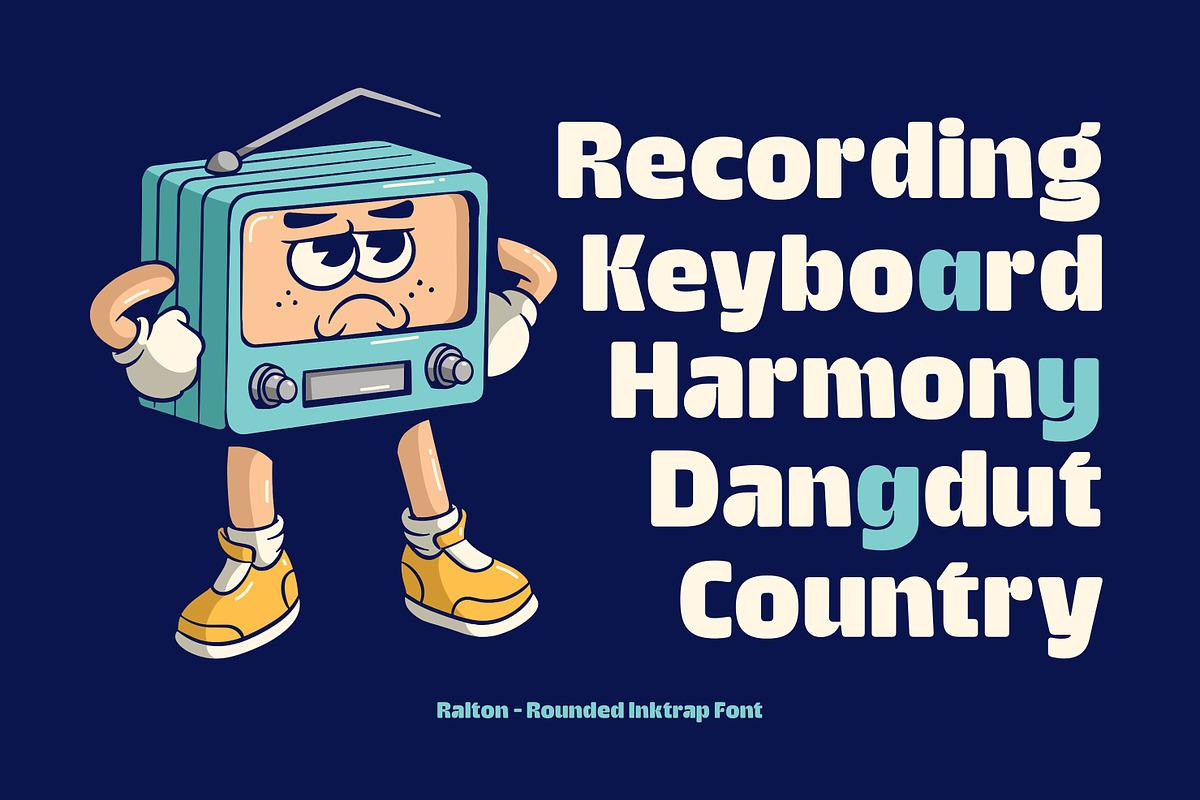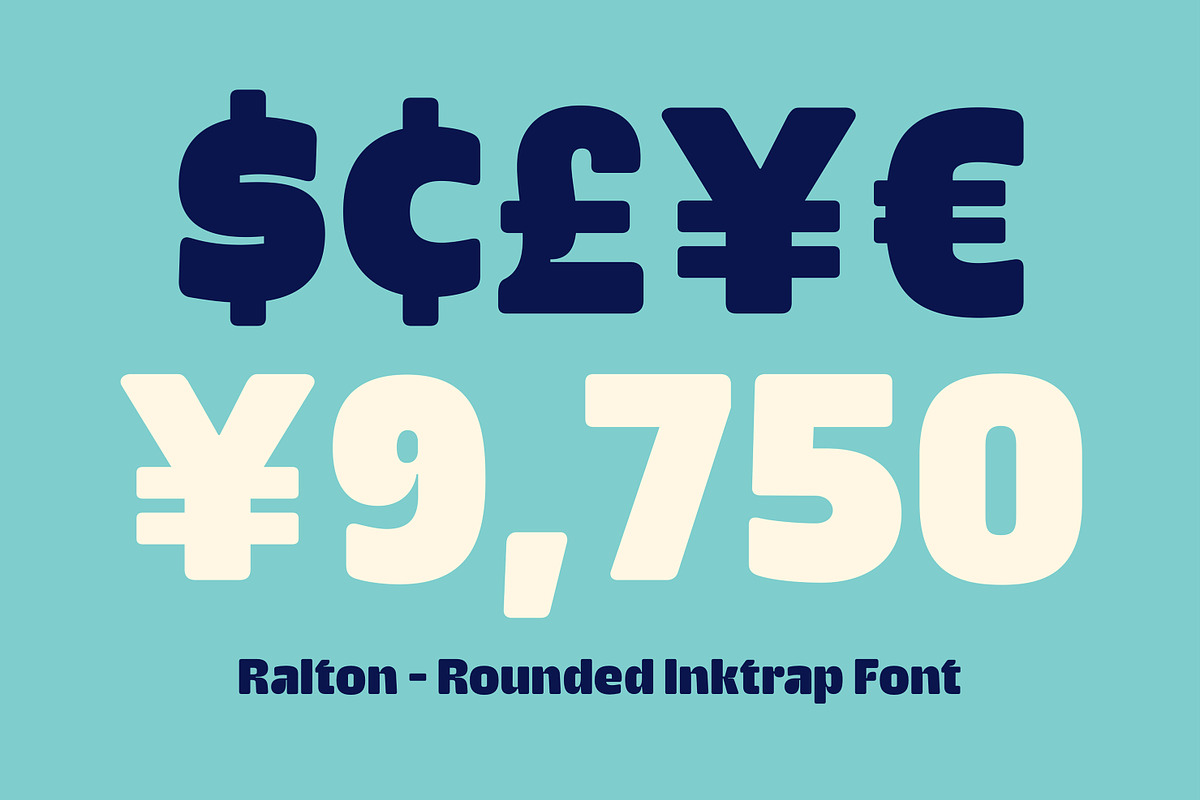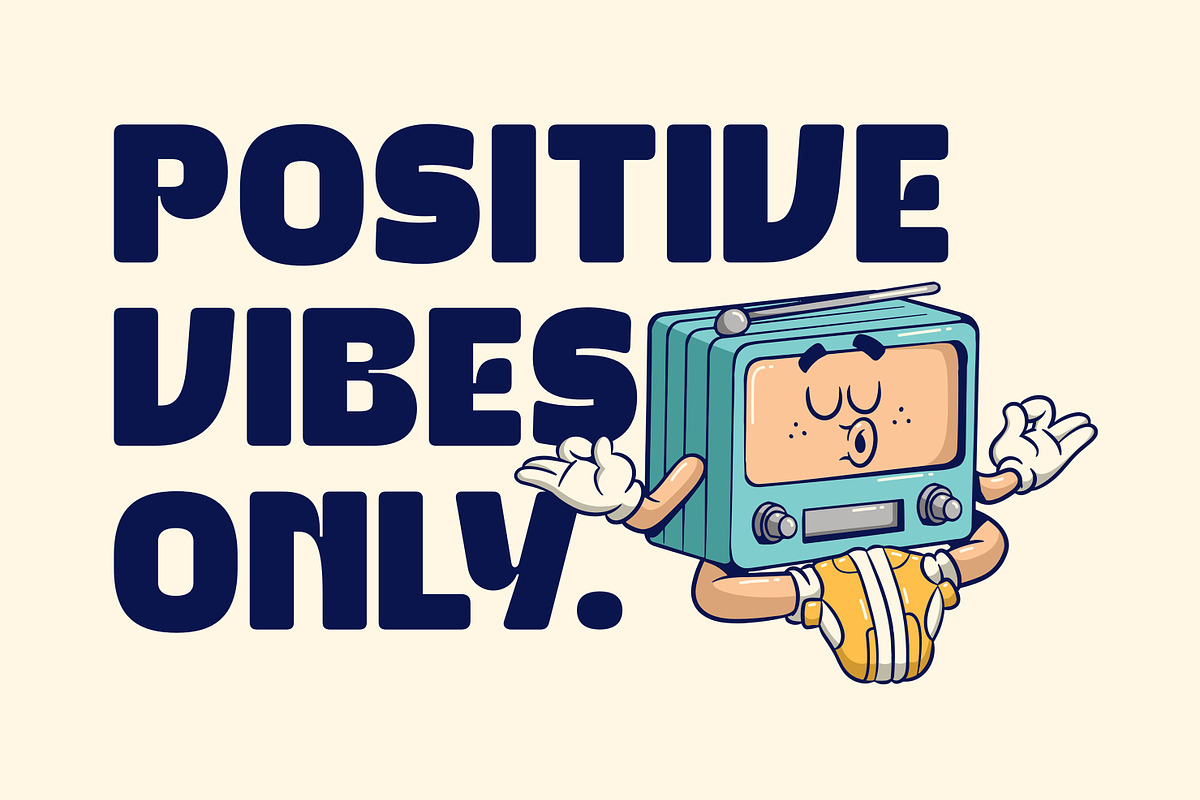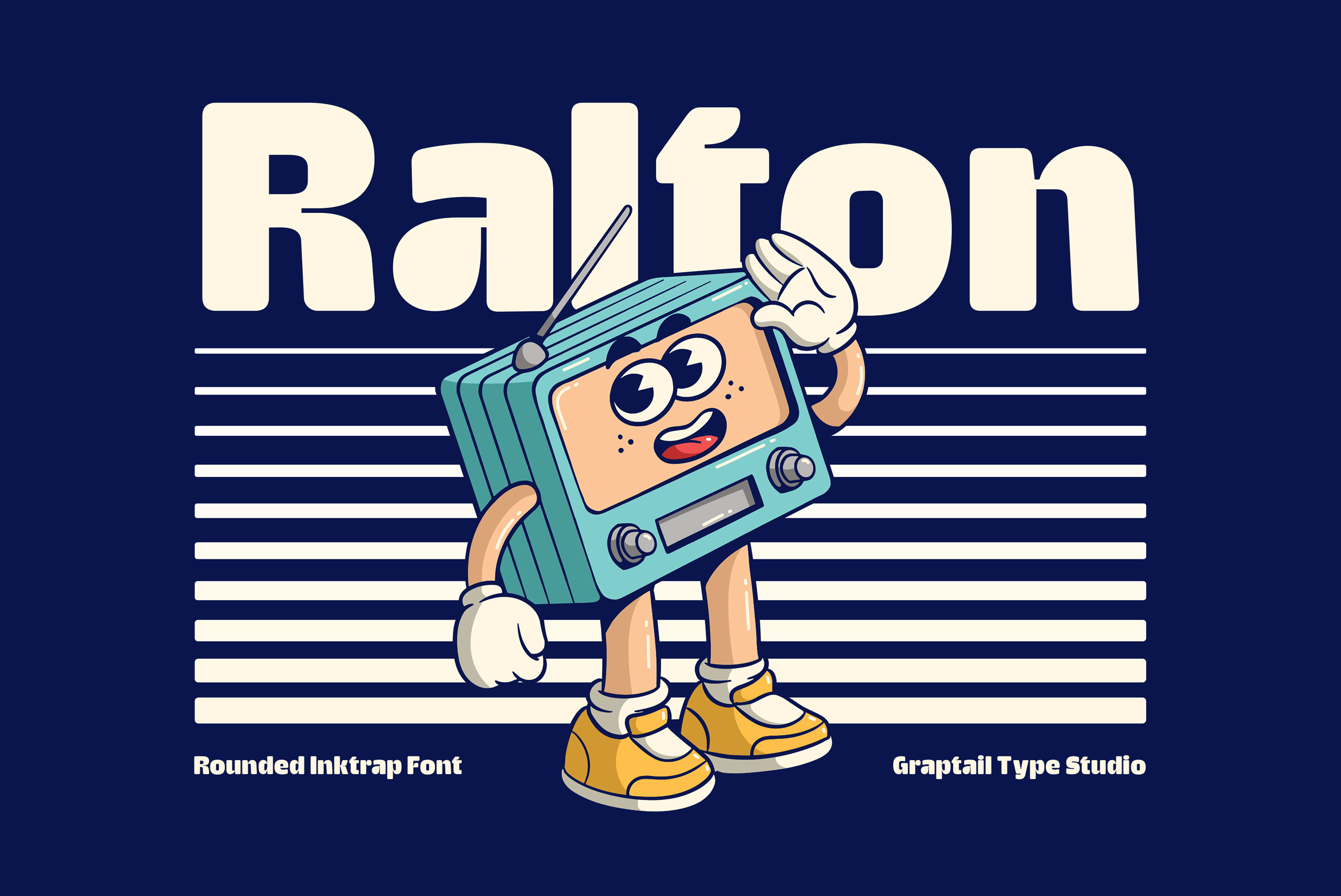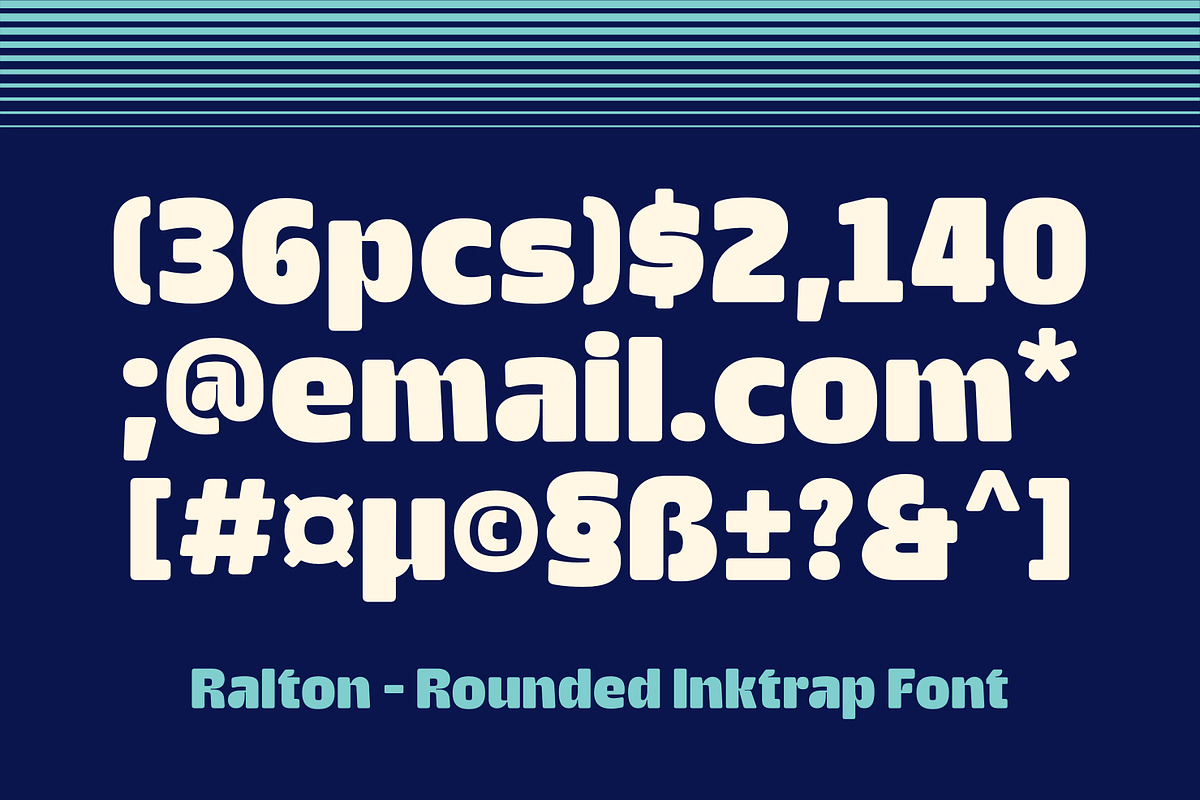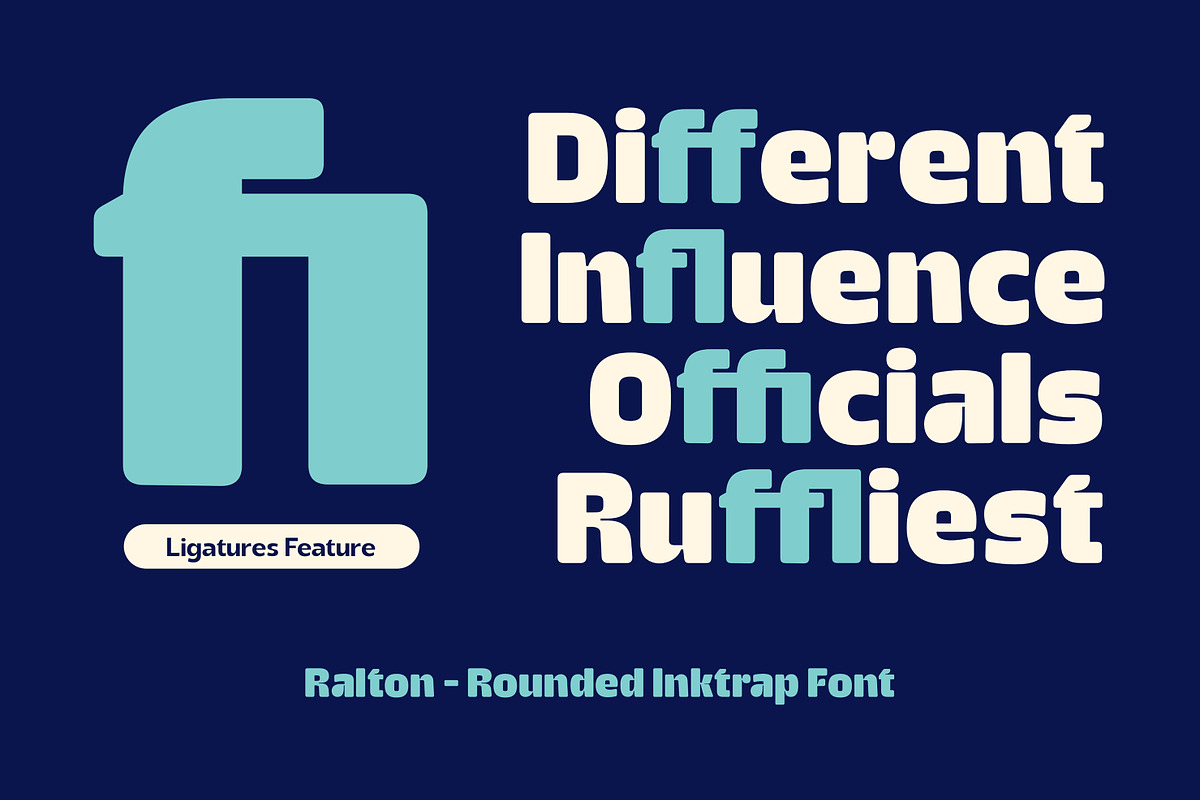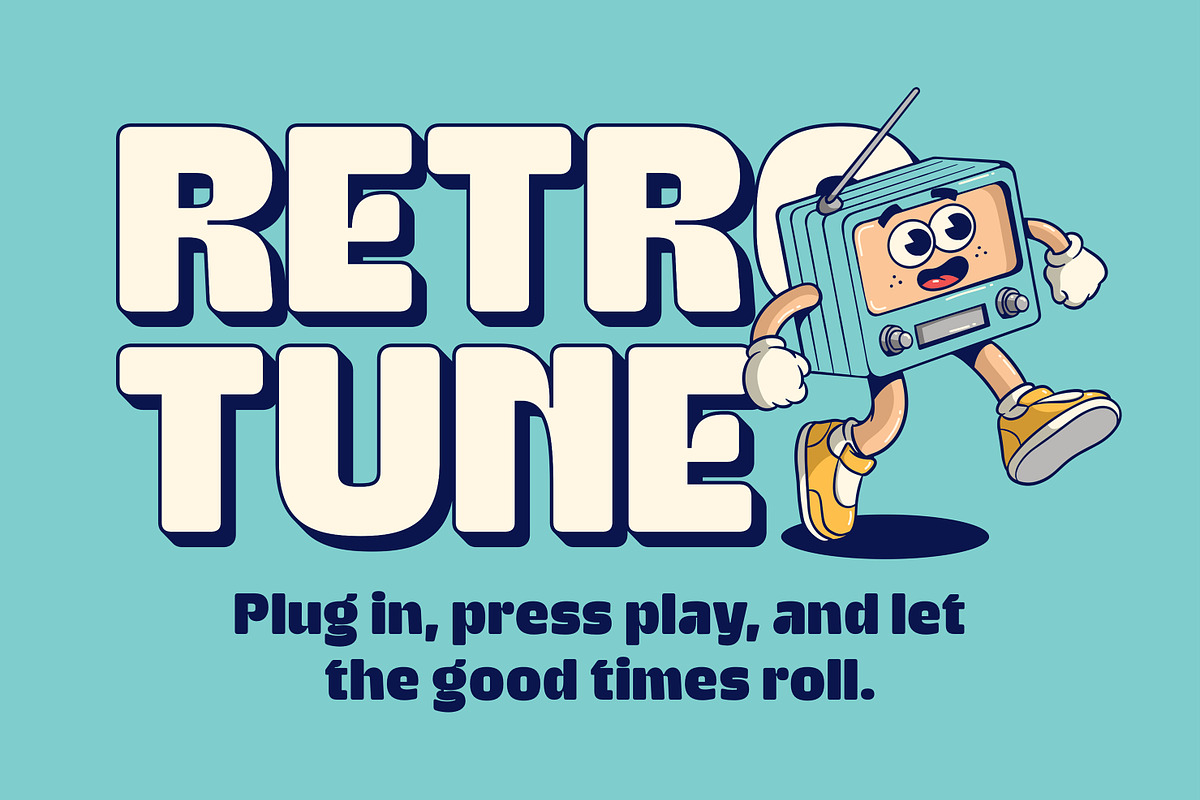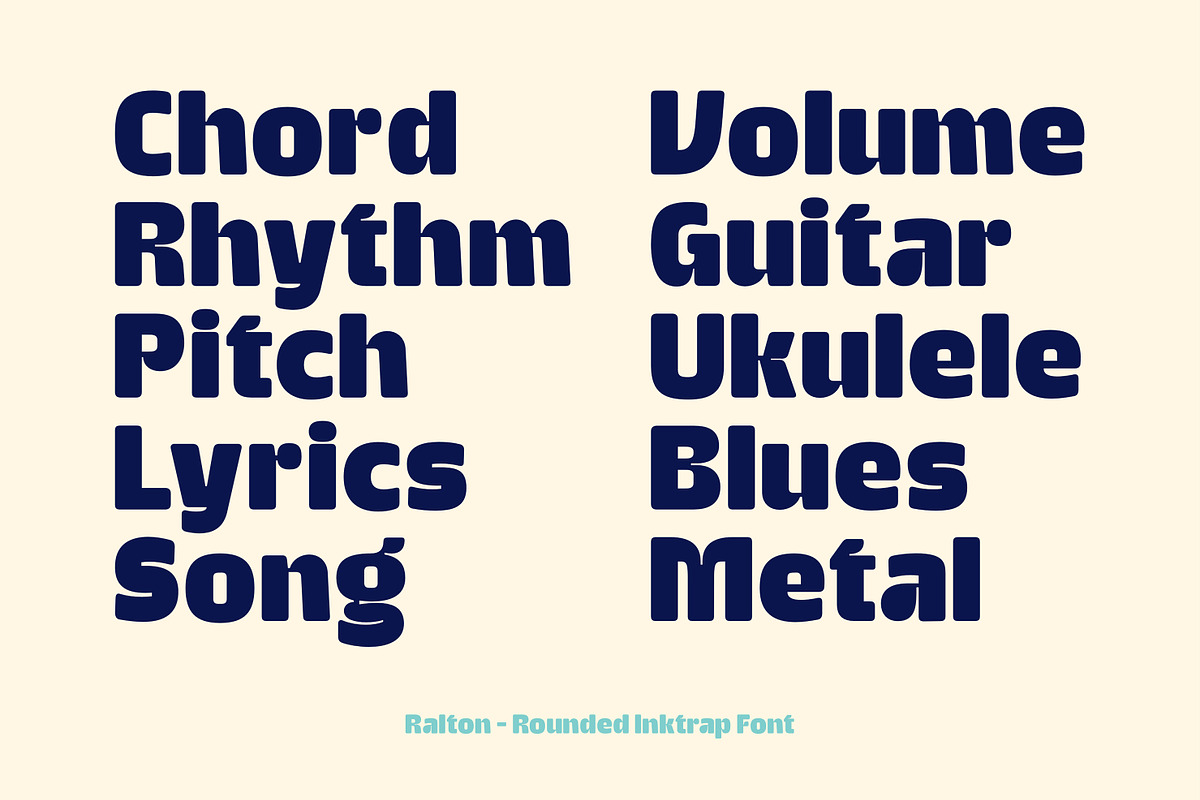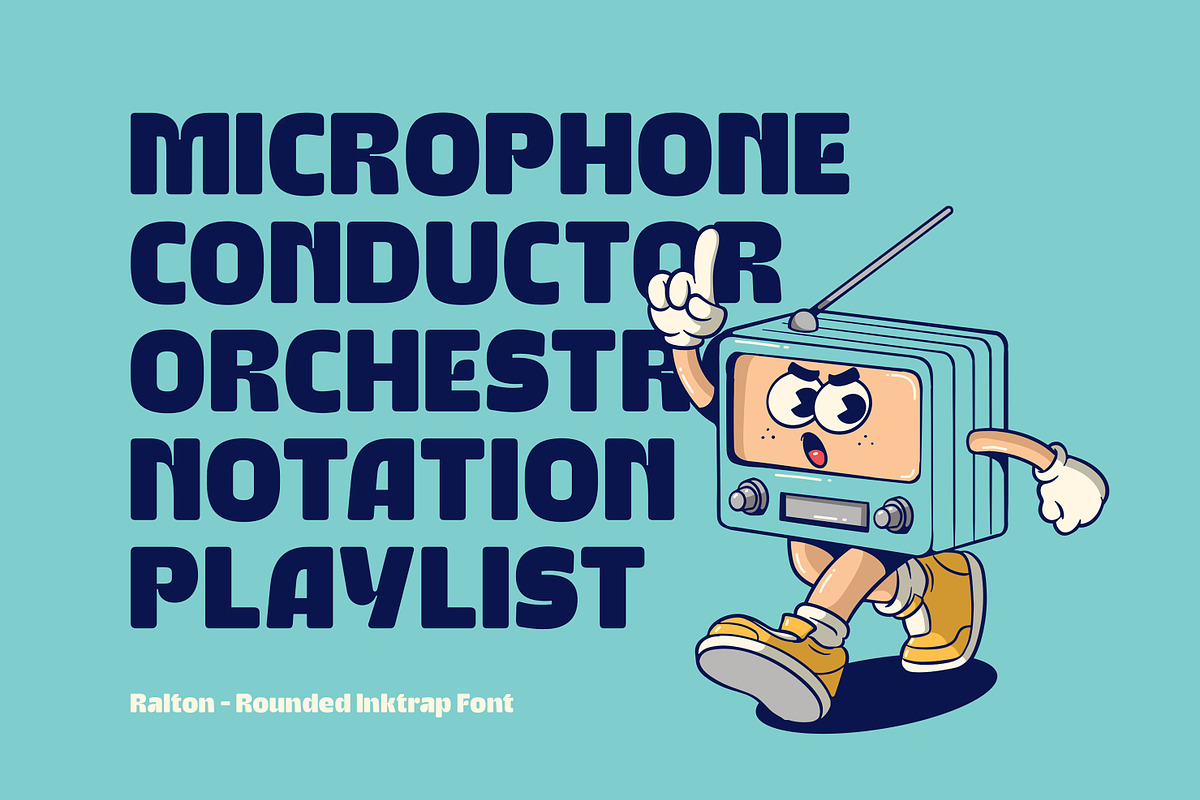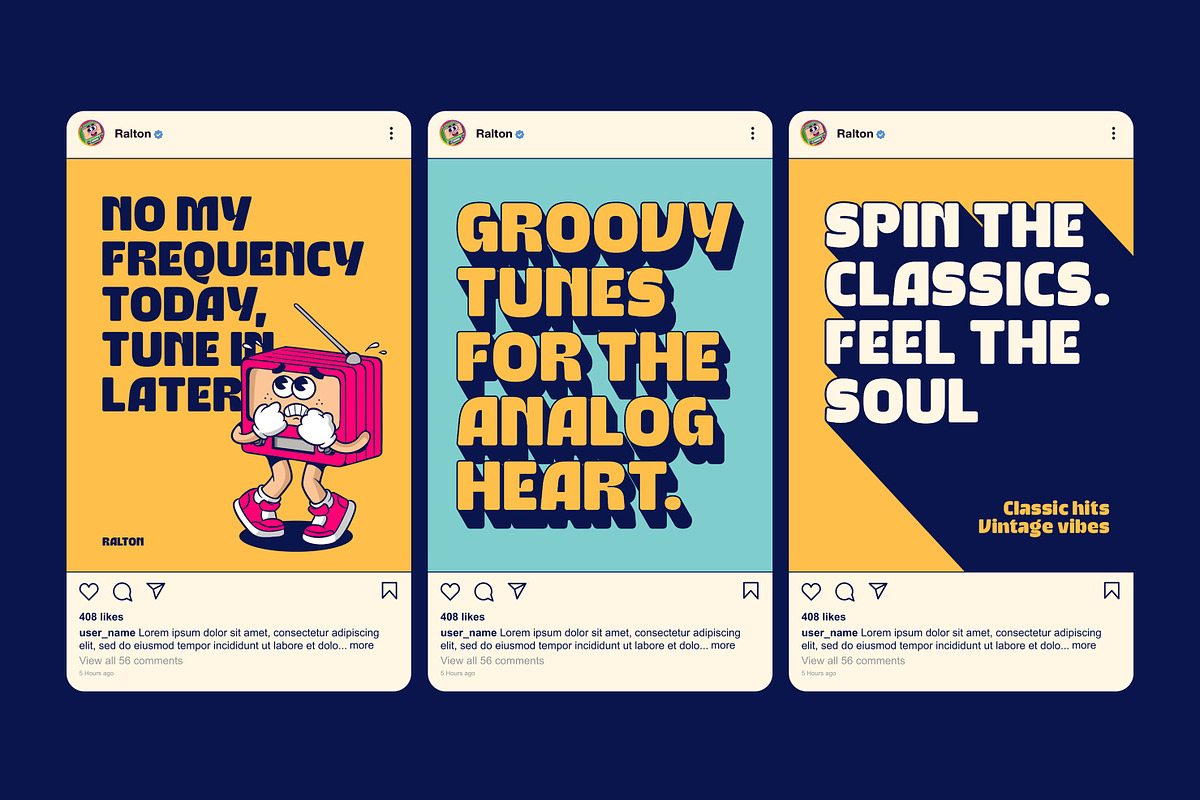
Ralton - Rounded Inktrap Font
Ralton is a rounded inktrap font that blends classic retro vibes with a soft, modern touch. Featuring smooth curves and subtle inktraps, this typeface brings a distinctive personality while maintaining excellent readability.
Perfect for a wide range of design needs—whether it’s branding, vintage posters, logos, packaging, or editorial layouts—Ralton adds a nostalgic flair without losing its contemporary edge.
With its unique forms and a vibe that channels the spirit of the ‘70s to early ‘90s, Ralton is your go-to font for projects that call for retro charm and creative character.
This font is perfect for creating nostalgic designs, such as retro/groovy posters, advertisements, and packaging. It's also great for creating unique and eye-catching titles and headings.
Choose Ralton for a retro-style font that adds nostalgia and personality to your designs.